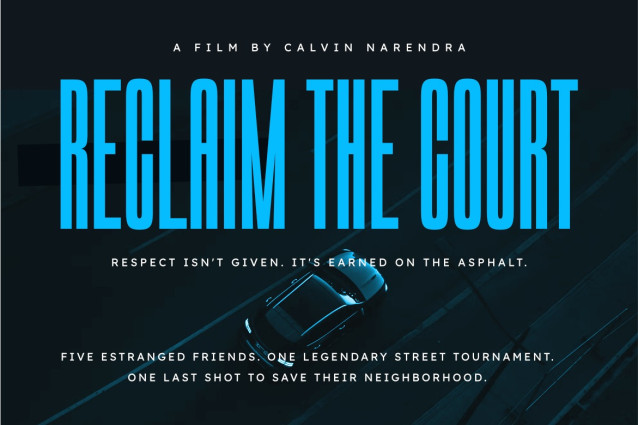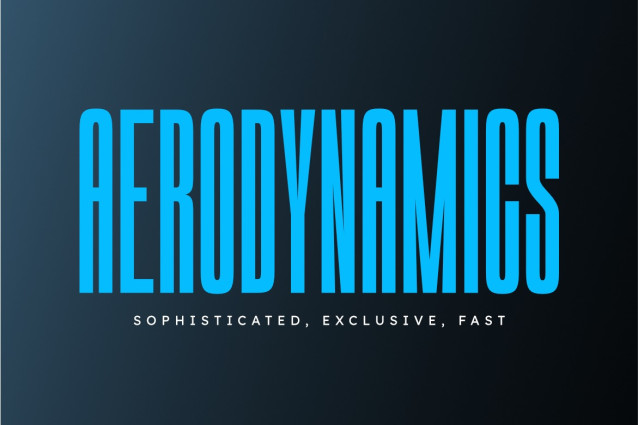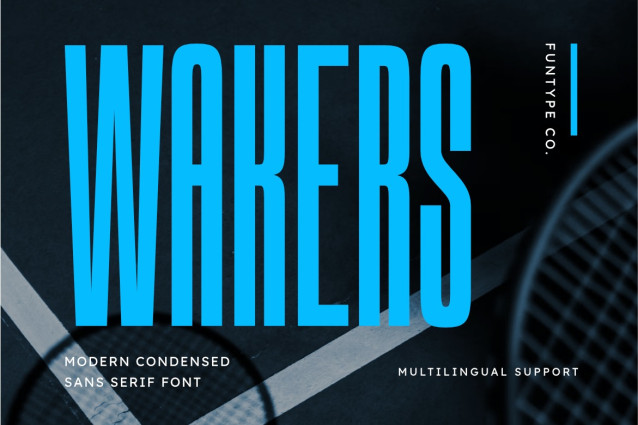
Wakers – Modern Condensed Sans Serif Font
Wakers is a bold, high-impact, and modern condensed sans serif font, engineered to bring a powerful athletic presence, ultra-tall space-saving geometry, and dynamic display aesthetic to contemporary design layouts. Featuring an elongated vertical profile, high x-height, and sharp angular notch cutouts balanced with sleek organic curves, Wakers introduces a dynamic sports broadcast identity, high-energy editorial publishing, tournament event promotion, and prominent digital presentation designed to claim absolute visual focus.
This font family is the ultimate choice for creative directors, athletic event organizers, and publication publishers looking to implement a robust typography identity for major text hierarchies. Whether you are developing bold corporate enterprise logotypes, athletic tournament posters, energetic beverage packaging labels, cinematic action movie title sequences, outdoor campaign headers, or prominent digital web banners, Wakers stands out with supreme legibility and commanding structural confidence.